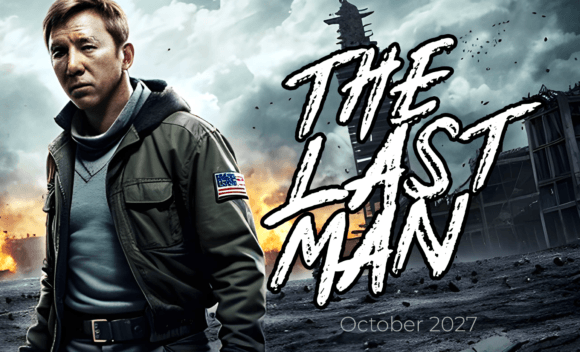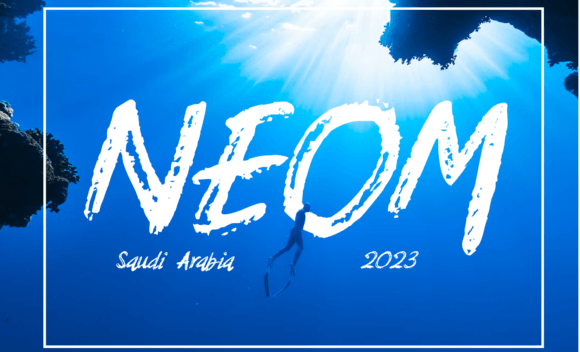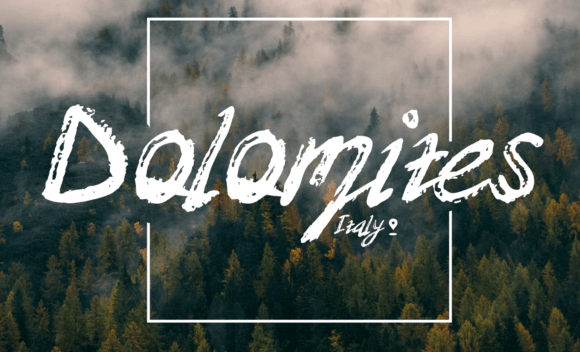
Introduction to Brvsheed Font
Introducing Brvsheed, a modern handwritten font that exudes uniqueness with its brushed texture.
With both Regular and Italic styles, it’s a versatile choice for posters, marketing, T-shirt design, and more Its multilingual support enhances its usability, while its distinctive look adds flair to titles, YouTube thumbnails, and poster, etc.
Key Features of Brvsheed Font
Why Choose Brvsheed Font?
Brvsheed Font offers exceptional quality and versatility, making it a valuable addition to your design toolkit. Whether you’re creating for personal projects or commercial use, Brvsheed Font delivers professional results.